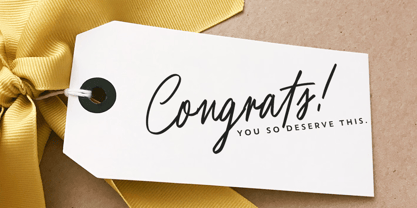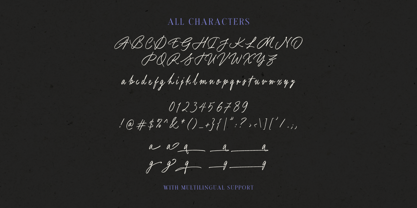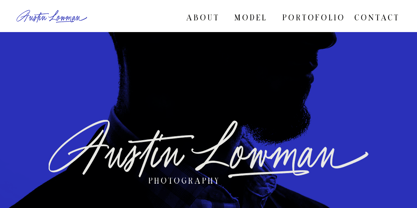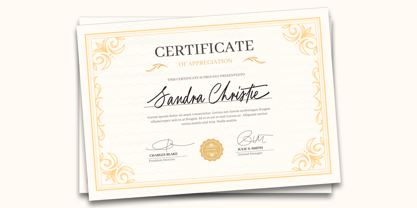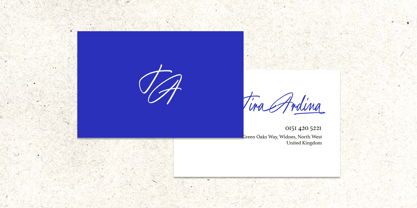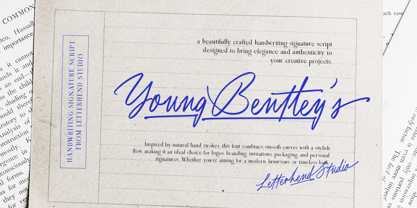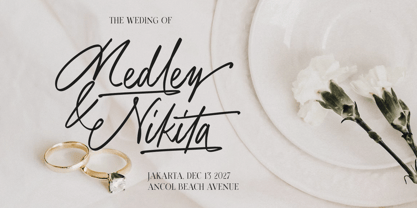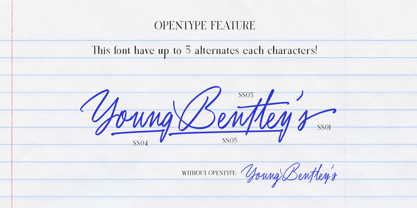
Young Bentley
by Letterhend
The Young Bentley Font Family was designed by Hendry Juanda and published by Letterhend. Young Bentley contains 1 styles.
Young Bentley’s is a stylish handwritten signature font with smooth, natural curves and an effortless flow. It captures the look of genuine pen strokes, bringing elegance and modern charm to your designs. Perfect for logos, branding, invitations, packaging, and anything that needs a refined handwritten touch, this font adds a sense of class and authenticity without trying too hard. Features : Uppercase & lowercase Numbers and punctuation Alternates & Ligatures Multilingual Support PUA encoded